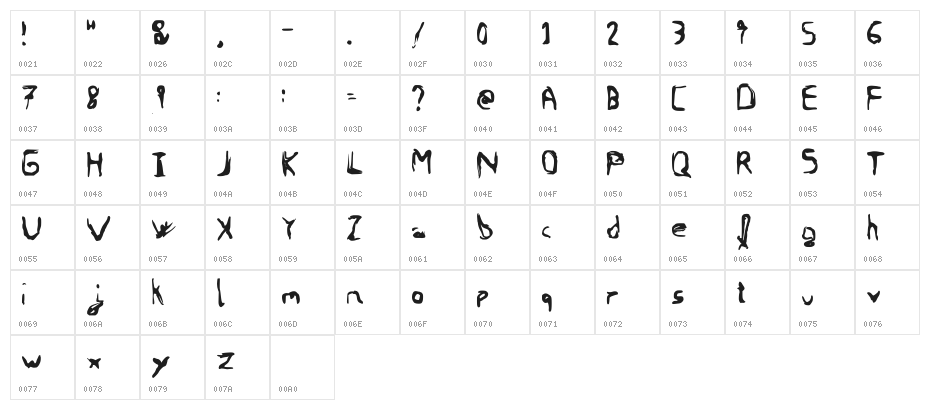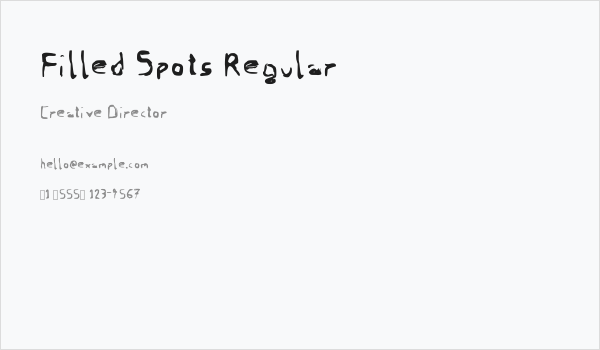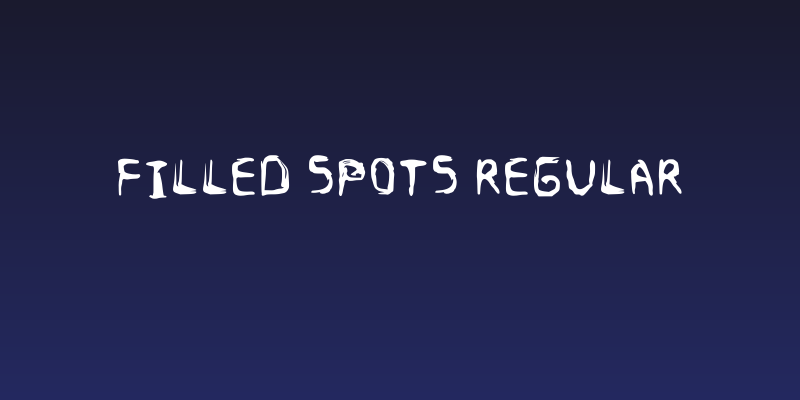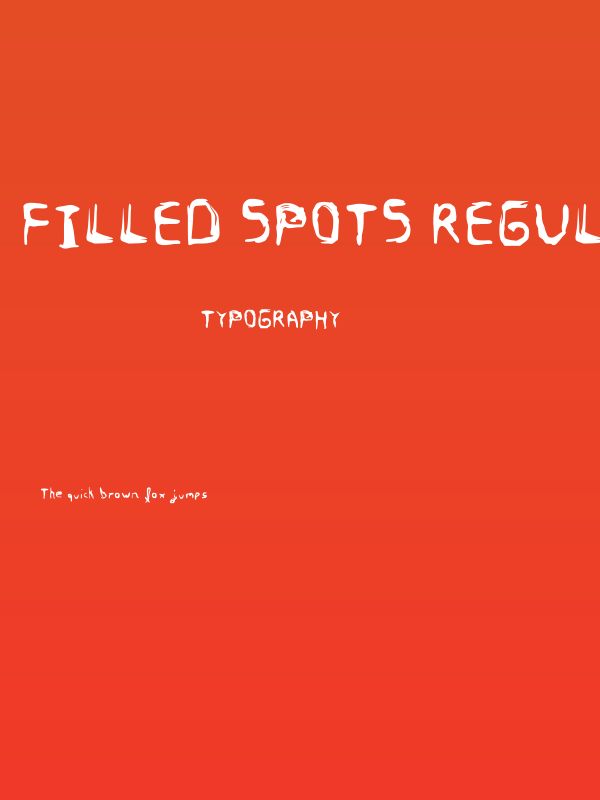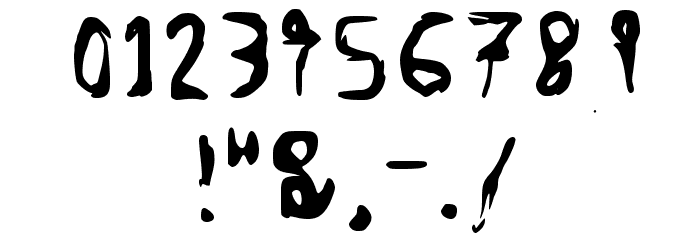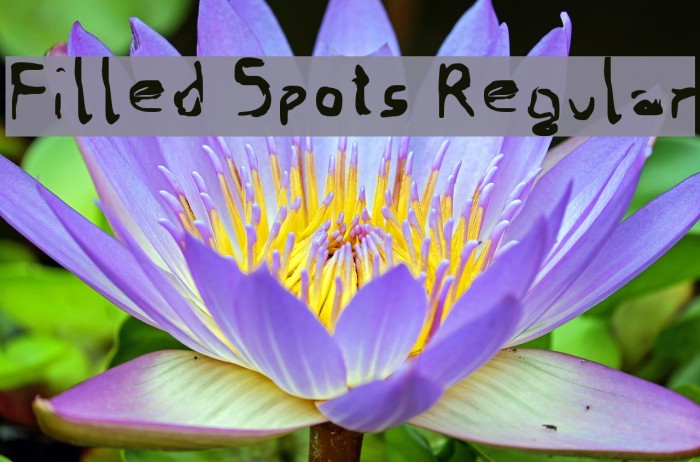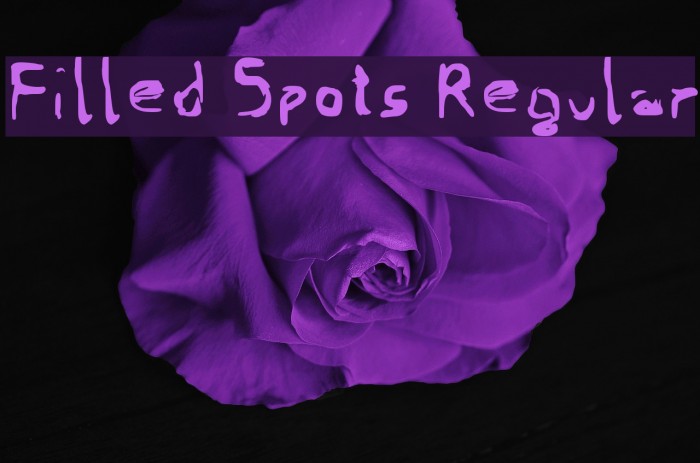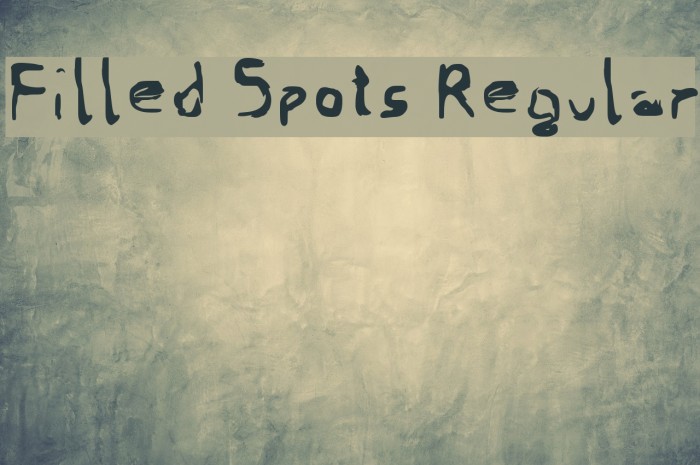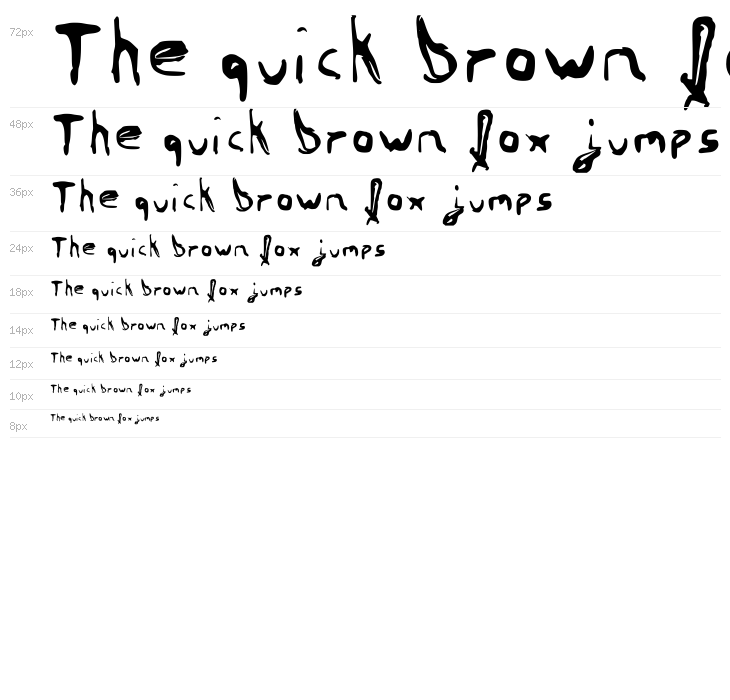
Filled Spots Regular Font
Filled Spots Regular Description
This font features a bold and expressive style with a hand-painted appearance. The characters are irregular and organic, giving a sense of movement and energy. The strokes are thick and uneven, with a slightly rough texture that adds to its artistic flair. Each letter has a unique form, contributing to a dynamic and lively overall look. The font maintains legibility despite its unconventional design, making it suitable for creative and eye-catching projects.
| Overall Style | Artistic, Expressive |
| Proposed Projects | Ideal for artistic posters, album covers, branding for creative industries, and any project requiring a bold, artistic touch. |